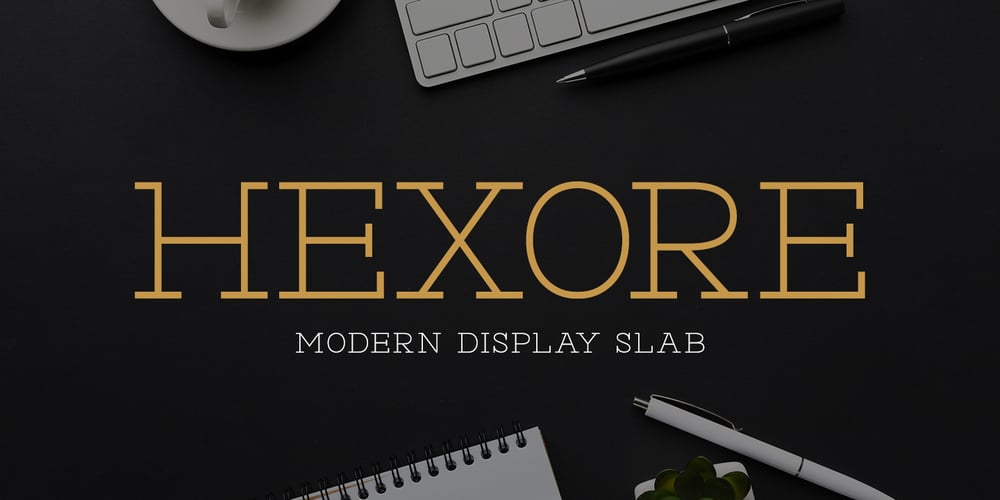
Hexore
Hexore font
Hexore Font Family was designed by Abdul Malik Wisnu and published by Almarkha Type. Hexore contains 1 styles and family package options. ntroducing Hexore – Modern Display Slab inspired by the famous minimalist logo, perfect for the purposes of designing templates, brochures, videos, advertising branding, logos and more.